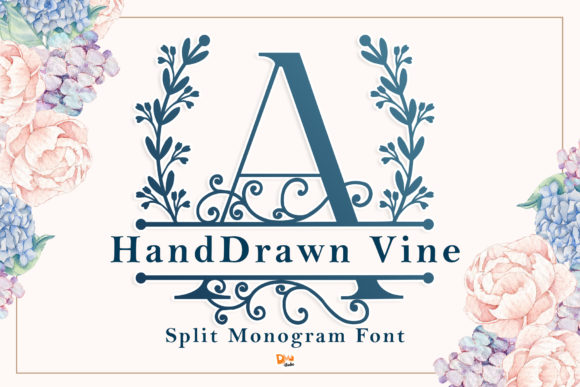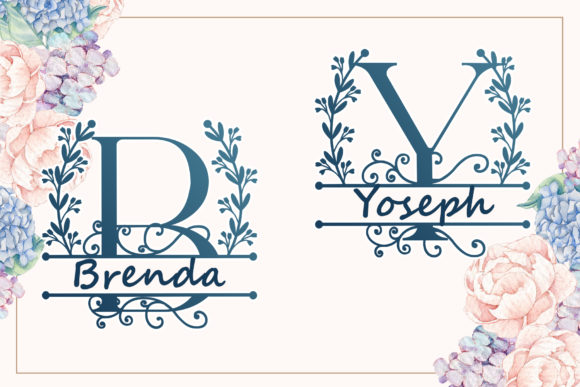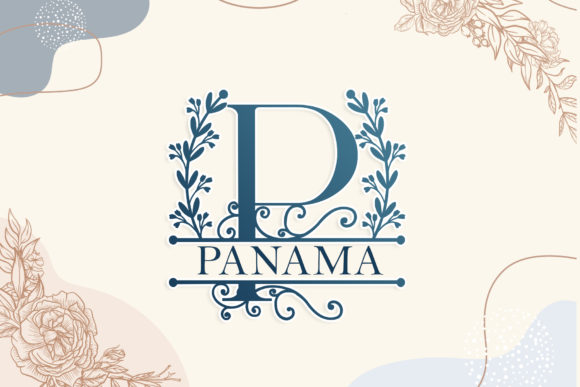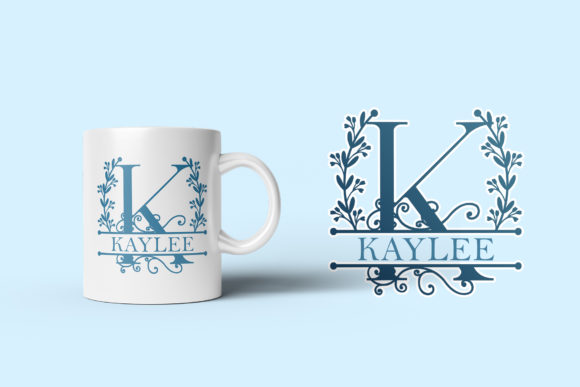
Handdrawn Vine Font
About the Handdrawn Vine Font
Introducing the Handdrawn Vine Font, a beautifully crafted typeface designed to elevate your creative projects. Handdrawn Vine is a stunning monogram decorative font with a floral theme. Use this font for any crafting project that requires a personalized look!
Handdrawn Vine’s decorative style is ideal for short headlines, logos, wedding invitations, or social media graphics where its delicate floral details add a touch of personalized charm. It shines in applications requiring a handcrafted, romantic feel. Avoid using it for body text or lengthy passages; its intricate design would hinder readability.
This font’s personality is undeniably elegant and romantic. To balance its ornate nature, pair it with a clean sans-serif like Lato for body copy or a geometric sans-serif like Futura for a more modern contrast. For a softer pairing, consider a script font with simpler strokes.
Consider pairing it with a contrasting serif such as Playfair Display for a touch of classic sophistication, enhancing the overall visual hierarchy.
Handdrawn Vine Font Usage Examples
Handdrawn Vine Font Example